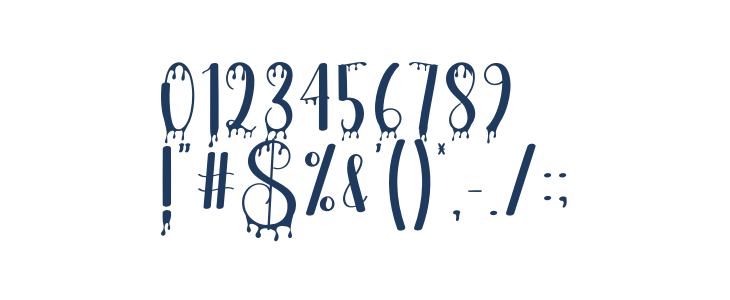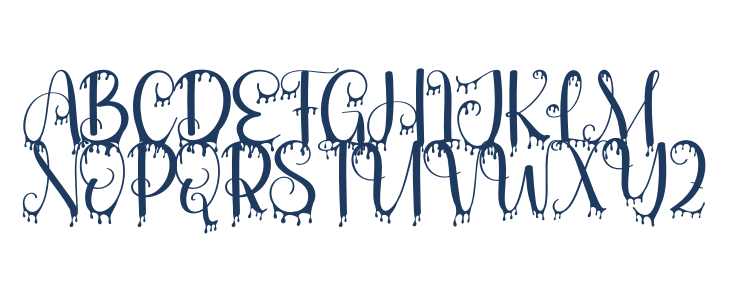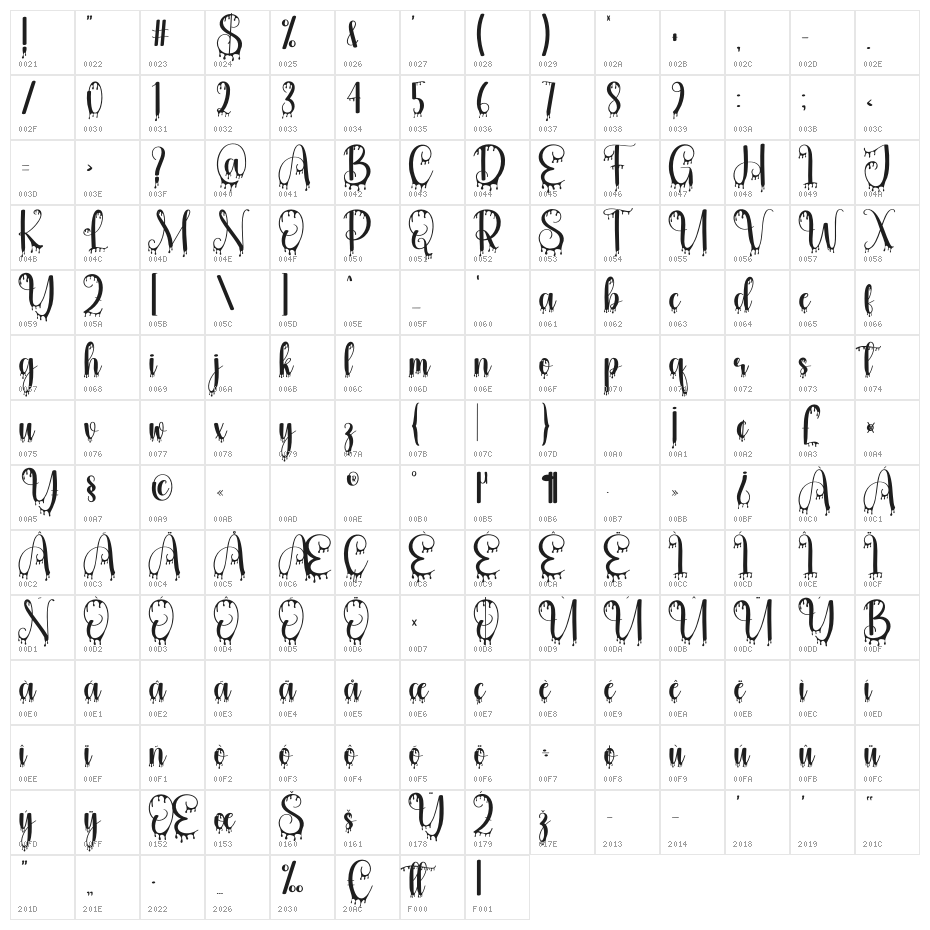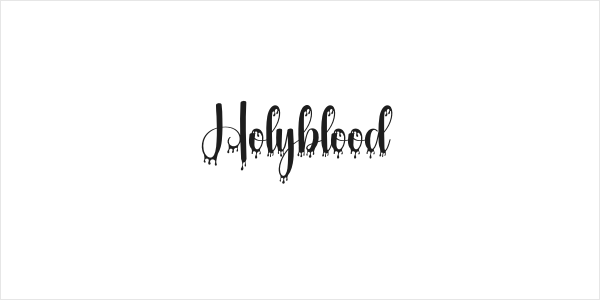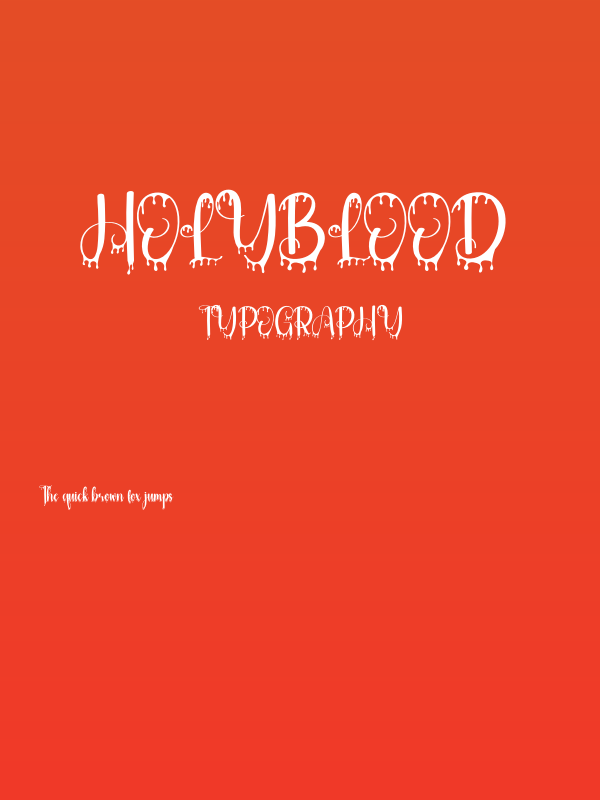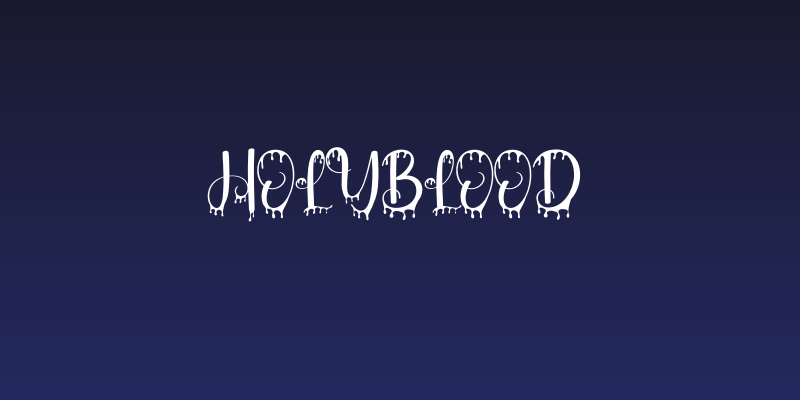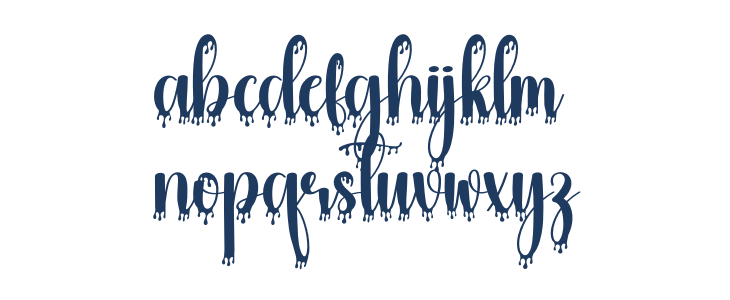
Holyblood Font
Holyblood Description
A decorative display font featuring playful, dripping elements at the ends of strokes, evoking a spooky or horror-inspired aesthetic. The letterforms are tall and narrow with a mix of script and upright styles, and the numerals and punctuation share the same dripping motif.
| Width | Condensed |
| Overall Style | Decorative, Spooky, Playful |
| Use Case | Headlines, Posters, Event Branding, Themed Graphics |
| Proposed Projects | Halloween posters, horror movie titles, themed party invitations, haunted house signage, event branding. |